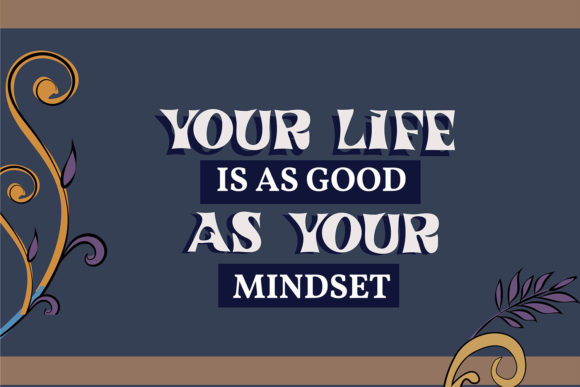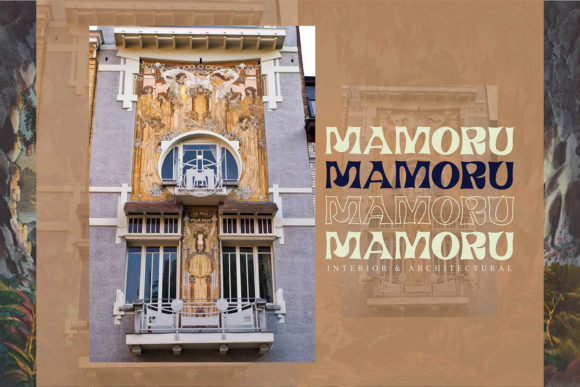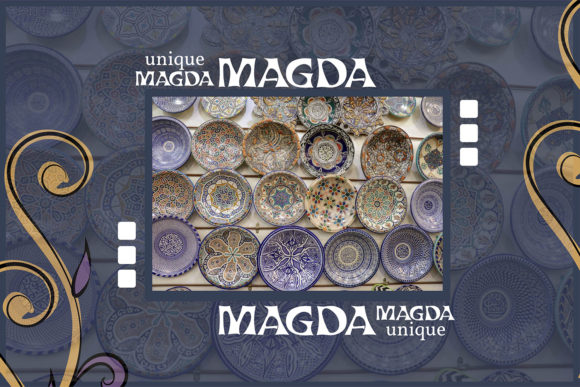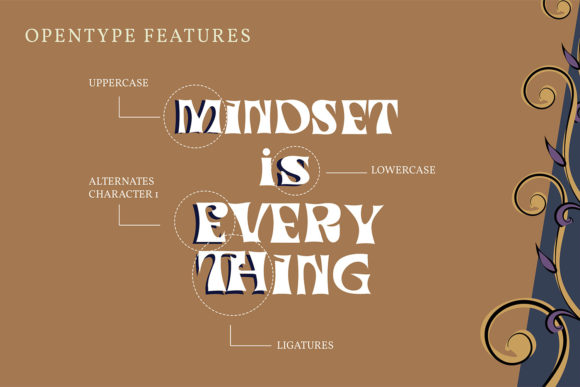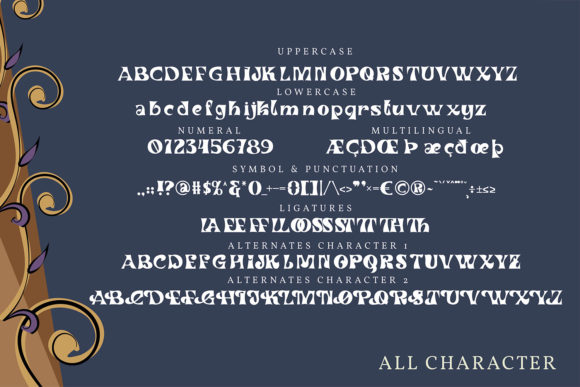
Introducing Heatbrand Font: Elevate Your Creations with a Cool, Bold, and Vintage Style
Are you a designer or crafter looking for a font that will make your creations stand out? Look no further than Heatbrand Font! This trendy and stylish display font is perfect for anyone who wants to add a touch of vintage flair to their work. In this article, we’ll dive into the features and benefits of Heatbrand Font, and explore how it can elevate your designs.
A Cool, Bold, and Vintage Styled Display Font
Heatbrand Font is a cool, bold, and vintage styled display font that’s perfect for making a statement. Its unique design combines classic elements with modern flair, making it a versatile choice for a wide range of projects. Whether you’re working on a logo, branding materials, or marketing collateral, Heatbrand Font is sure to turn heads.
Trendy and Stylish
Heatbrand Font is a trendy and stylish font that’s perfect for designers and crafters who want to stay on top of the latest design trends. Its bold and eye-catching design makes it perfect for use in:
- Marketing collateral and advertisements
- Packaging and labeling
One of the best things about Heatbrand Font is that it’s PUA (Private Use Area) encoded. This means that you can access all of the glyphs and swashes with ease, giving you maximum flexibility and creative control. With Heatbrand Font, you can:
- Access a wide range of glyphs and swashes
- Customize your text with ease
- Create unique and eye-catching designs
Heatbrand Font offers a range of benefits for designers and crafters, including:
- Time-saving: With Heatbrand Font, you can create professional-looking designs in no time. Its bold and eye-catching design makes it perfect for use in a wide range of projects.
- Easy to use: Heatbrand Font is PUA encoded, making it easy to access all of the glyphs and swashes. You can customize your text with ease and create unique and eye-catching designs.
- Versatile: Heatbrand Font is a versatile font that can be used in a wide range of projects, from logos and branding materials to marketing collateral and web design.
In conclusion, Heatbrand Font is a cool, bold, and vintage styled display font that’s perfect for designers and crafters who want to elevate their creations. Its trendy and stylish design, combined with its PUA encoding, makes it a versatile and easy-to-use font that’s perfect for a wide range of projects. Whether you’re working on a logo, branding materials, or marketing collateral, Heatbrand Font is sure to turn heads.